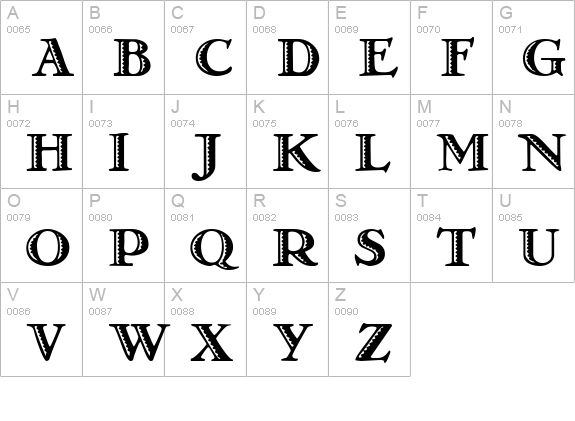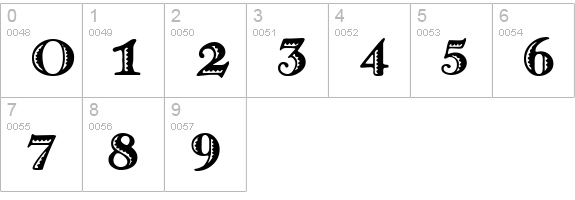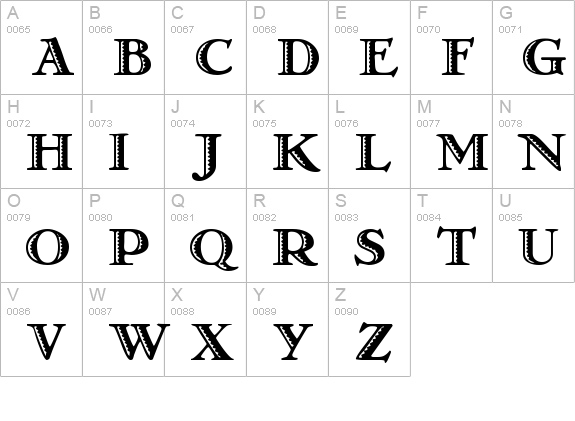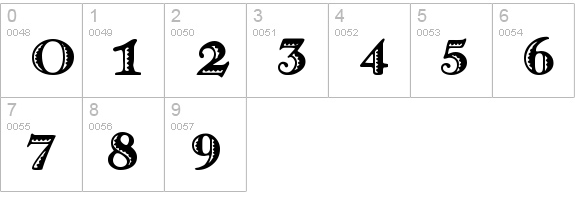
Matador Font Details
Introducing Matador Font, a striking and bold typeface that exudes confidence and elegance. With its sleek and modern design, Matador Font is perfect for a wide range of projects, from branding and advertising to editorial and web design. This versatile font features strong and clean lines, making it highly legible and easily readable at any size. Its unique combination of sharp edges and soft curves creates a visually captivating effect, capturing attention and leaving a lasting impression. But what sets Matador Font apart is not just its stunning aesthetics; it is also the fact that it is freely available to download at FontsMarket.com. Yes, you read that right - Matador Font can be yours without any cost. This means that you can elevate your designs without breaking the bank, as this exceptional font is accessible to all. Whether you are a professional designer or a passionate creative, Matador Font offers endless possibilities for your projects. Its extensive character set includes uppercase and lowercase letters, numbers, punctuation marks, and special symbols. This ensures that you have all the tools you need to express your creativity and bring your vision to life. So, why wait? Download Matador Font today from FontsMarket.com and embrace the power of this remarkable typeface. Be bold, be distinctive, and make a statement with Matador Font.